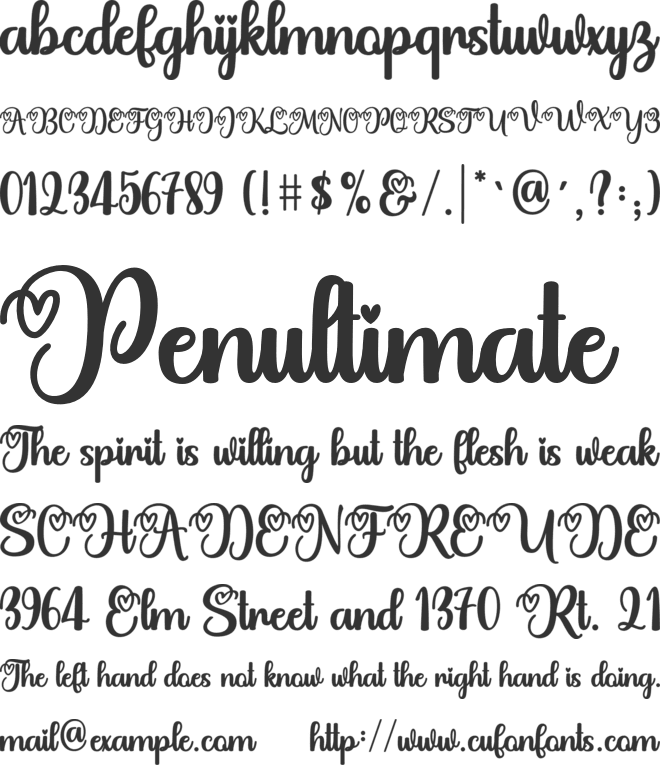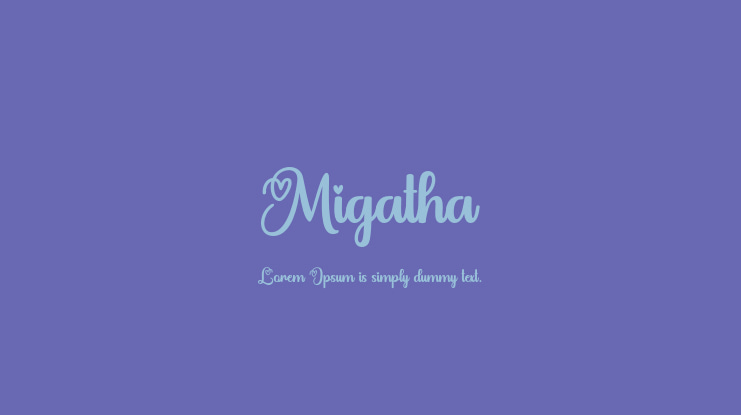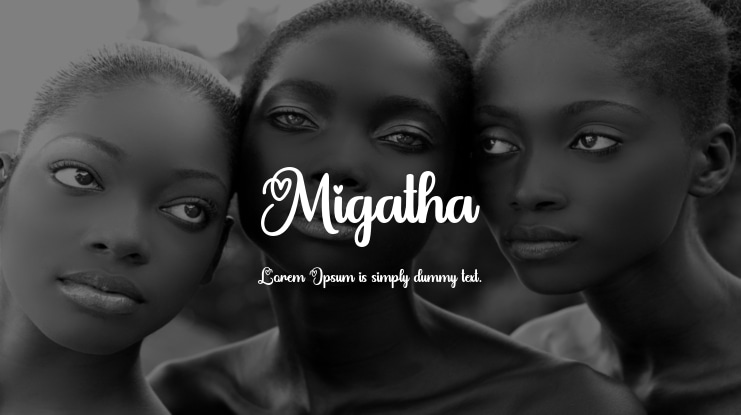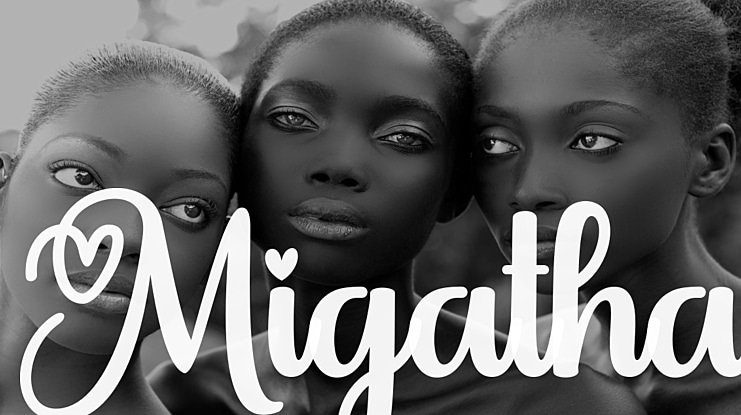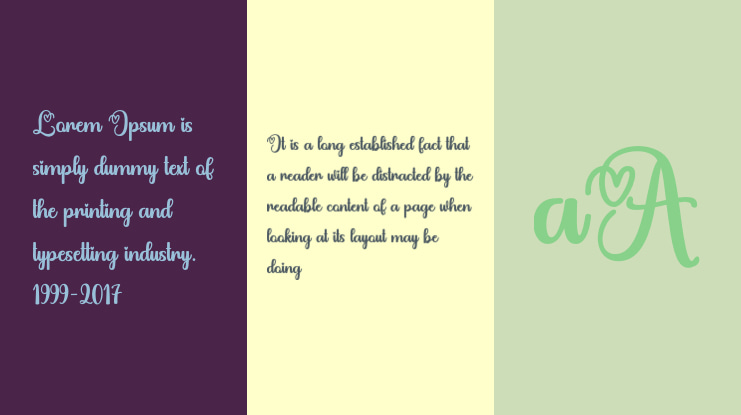
Migatha Font
Muhammad Nasir
Migatha is an elegant script typeface that draws inspiration from calligraphy. It features a contemporary design and impeccable contours, enhancing the visual appeal of your projects. The carefully balanced strokes strike a perfect harmony between being neither too thin nor too thick, giving this typeface a well-rounded appearance. Additionally, Migatha offers a wide range of weights to suit various design needs. With its PUA encoding, accessing all the beautiful glyphs and swashes in Melanie is a breeze!